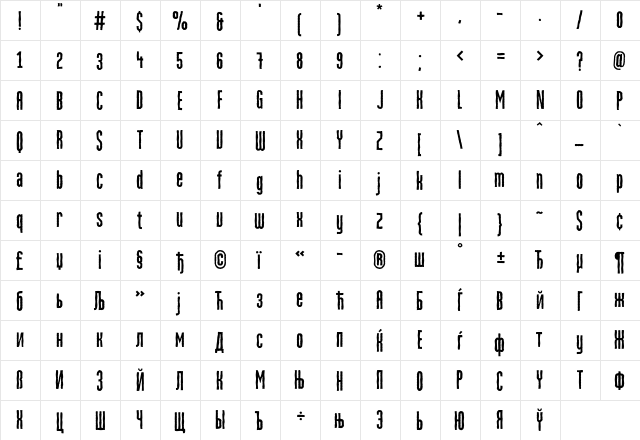
MartenCyr-GrotesqueRough Regular Font Preview
MartenCyr-GrotesqueRough Regular
Design Context for MartenCyr-GrotesqueRough Typeface
MartenCyr-GrotesqueRough embraces imperfection — its rough, textured character adds raw authenticity to designs that want to feel lived-in and unconventional.
Suited to punk-influenced zines, underground music branding, streetwear, and raw, anti-corporate design.
Pro Tip: Pair MartenCyr-GrotesqueRough with intentionally raw or lo-fi design elements. Fighting against it with overly polished surroundings will undermine its personality.